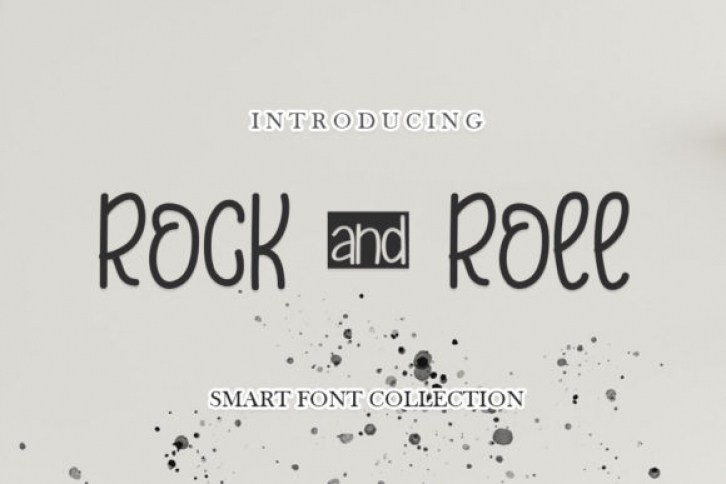
Rock and Roll is a fun and friendly display font. A little bit quirky, this font looks incredibly adept on a wide variety of contexts! It will look amazing on stationery, logos, social media post and any project that requires a unique look!